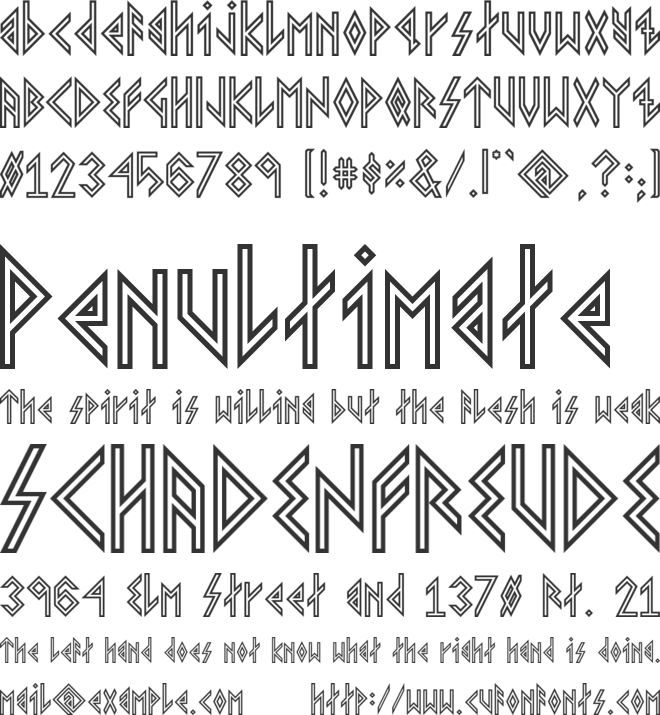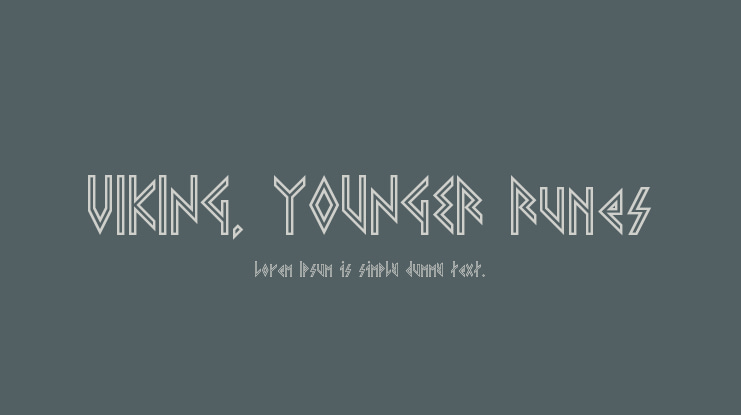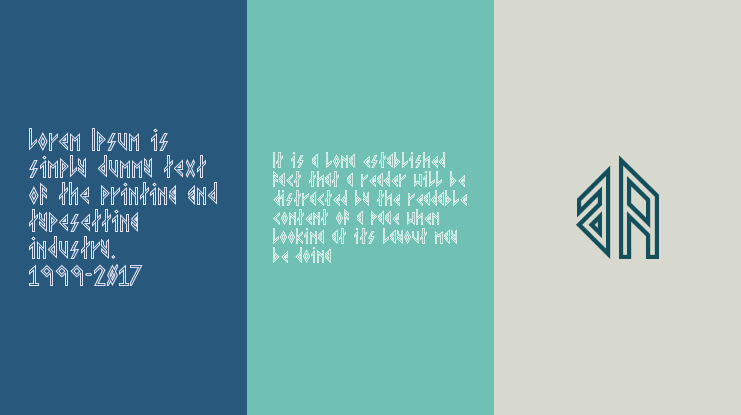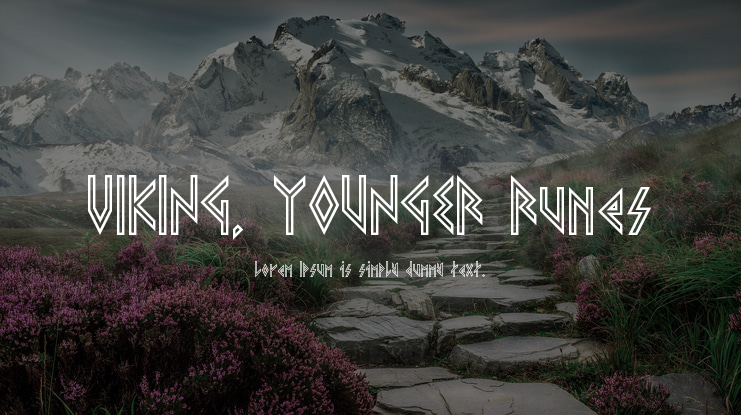
VIKING, YOUNGER Runes Font Family
VIKING is a false-historical font evolving from Elder Futhark Runes. This runic typeface is based upon the ancient Germanic symbols later adapted by the Goths, Anglo-Saxons, Vikings, The Third Reich, and within Fantasy genera, depicted as Dwarven Runes.
ELDER VIKING is almost an exact interpretation of Elder Futhark plus a few extra characters corresponding as a best fit to the basic 26 upper-case Latin characters.
MIDDLE VIKING is the second generation evolution Rune based upon Elder Futhark. Designed as a semi-cryptic, visually interesting type but intended to be almost-readable as a Latin equivalent (unlike ELDER VIKING), MIDDLE VIKING contains numeric runes and basic punctuation.
YOUNGER VIKING is the third generation rune type which is a fully modern interpretation of Elder Futhark. YOUNGER VIKING, a.k.a. "SPACE VIKING" contains all upper and lower-case fonts as well as numbers and various punctuation.